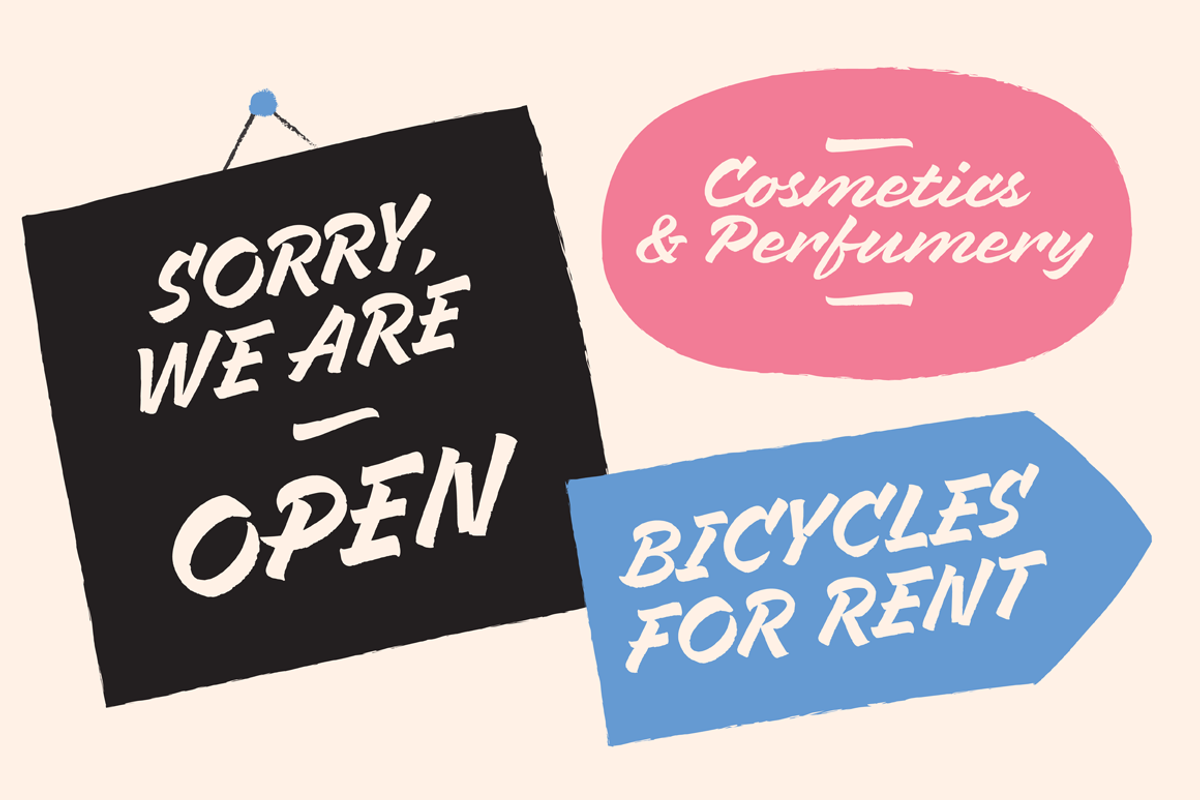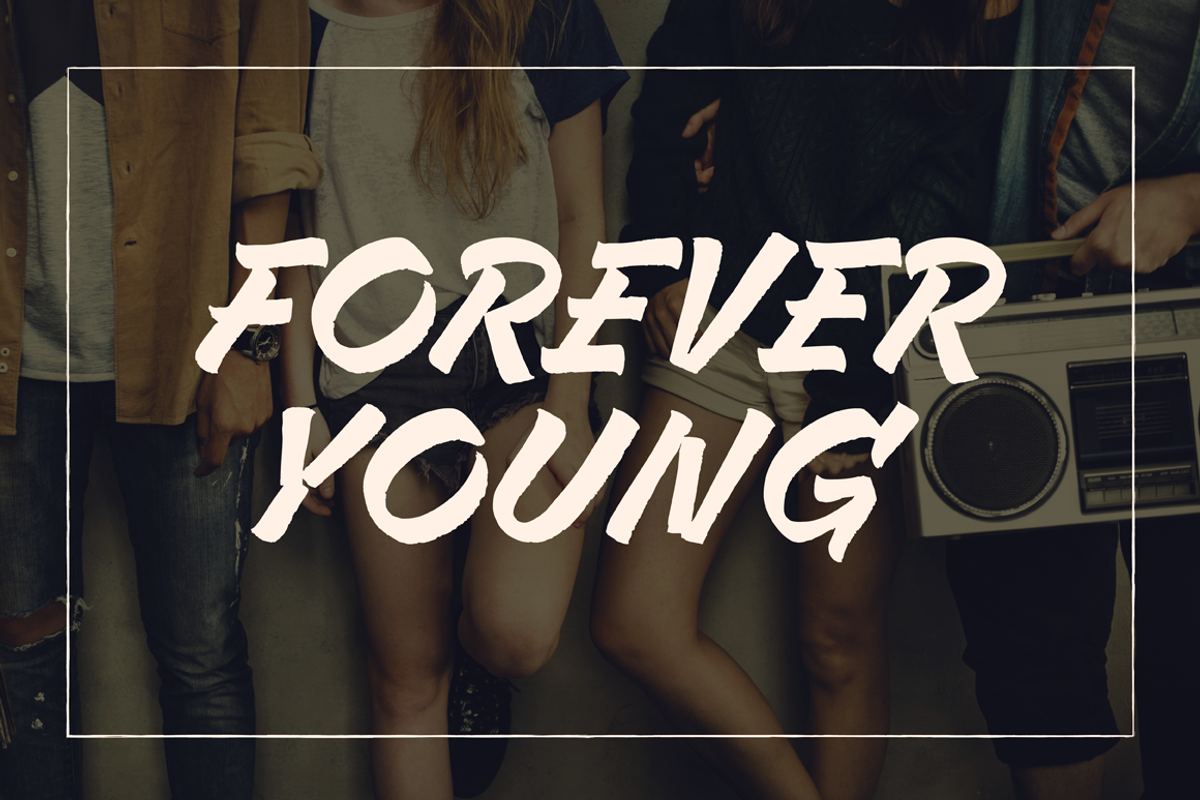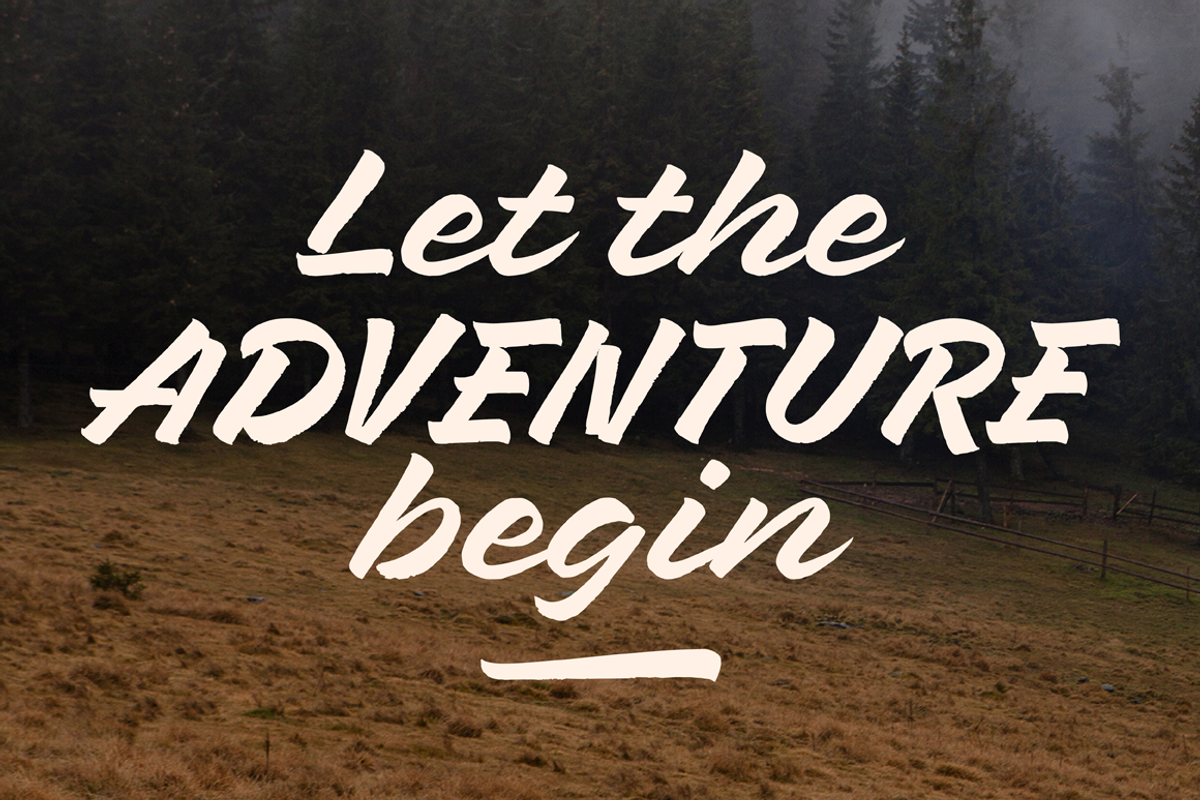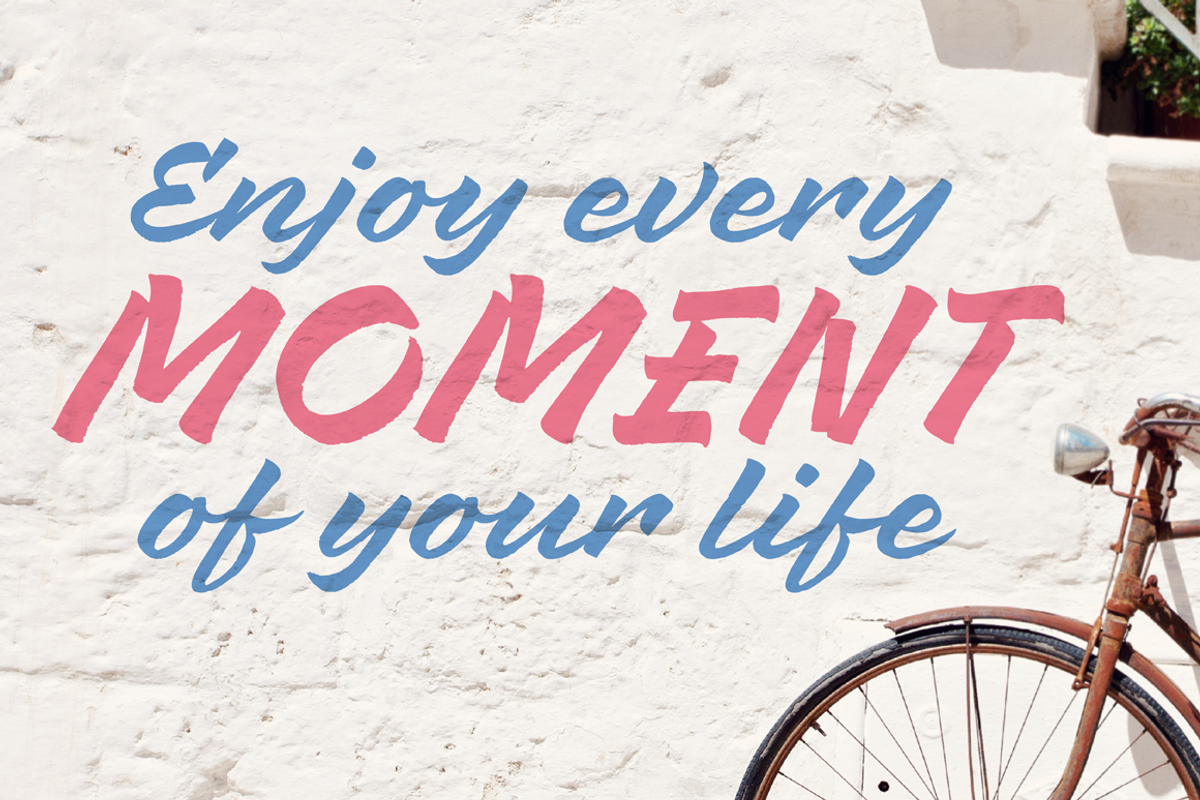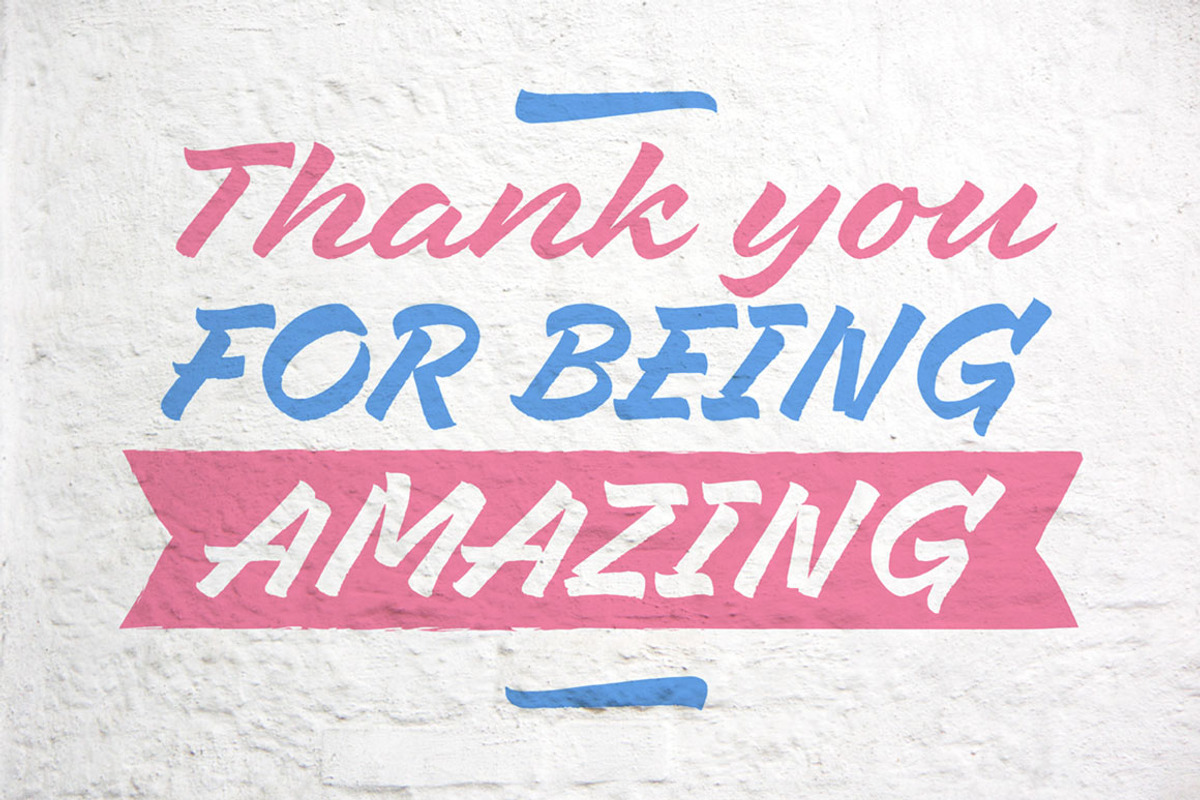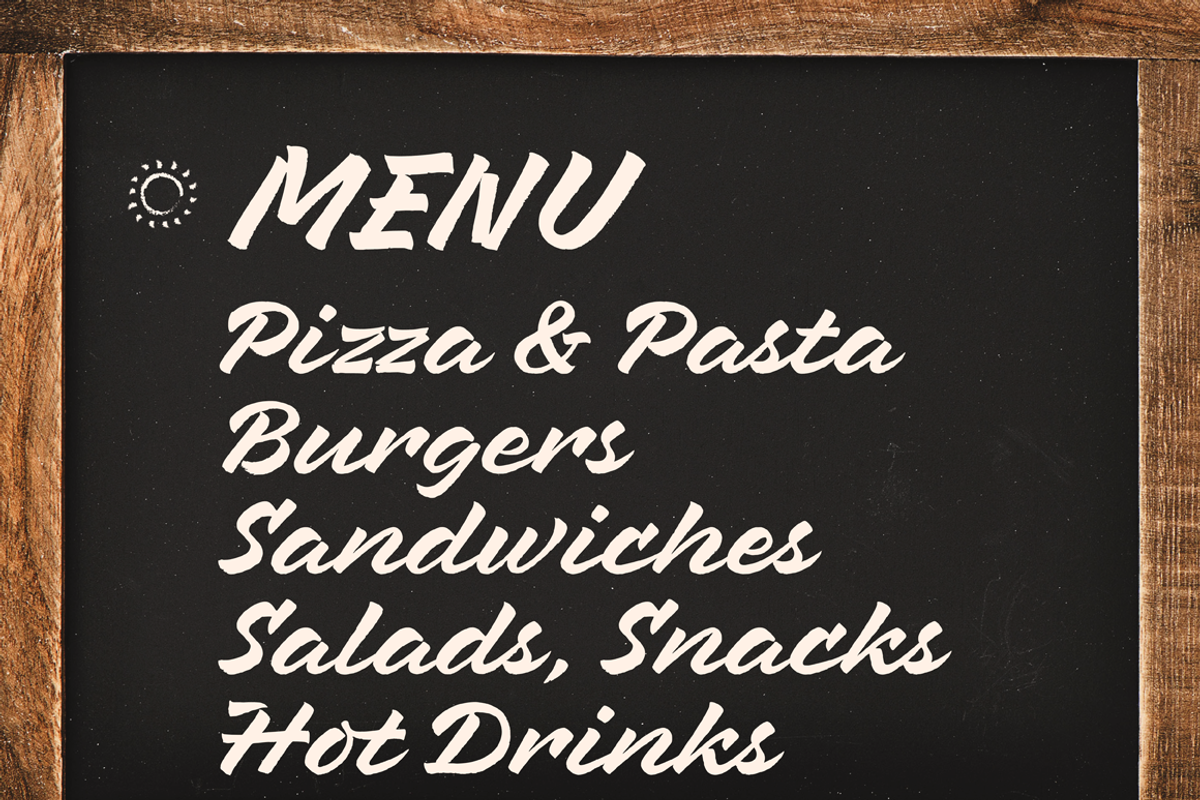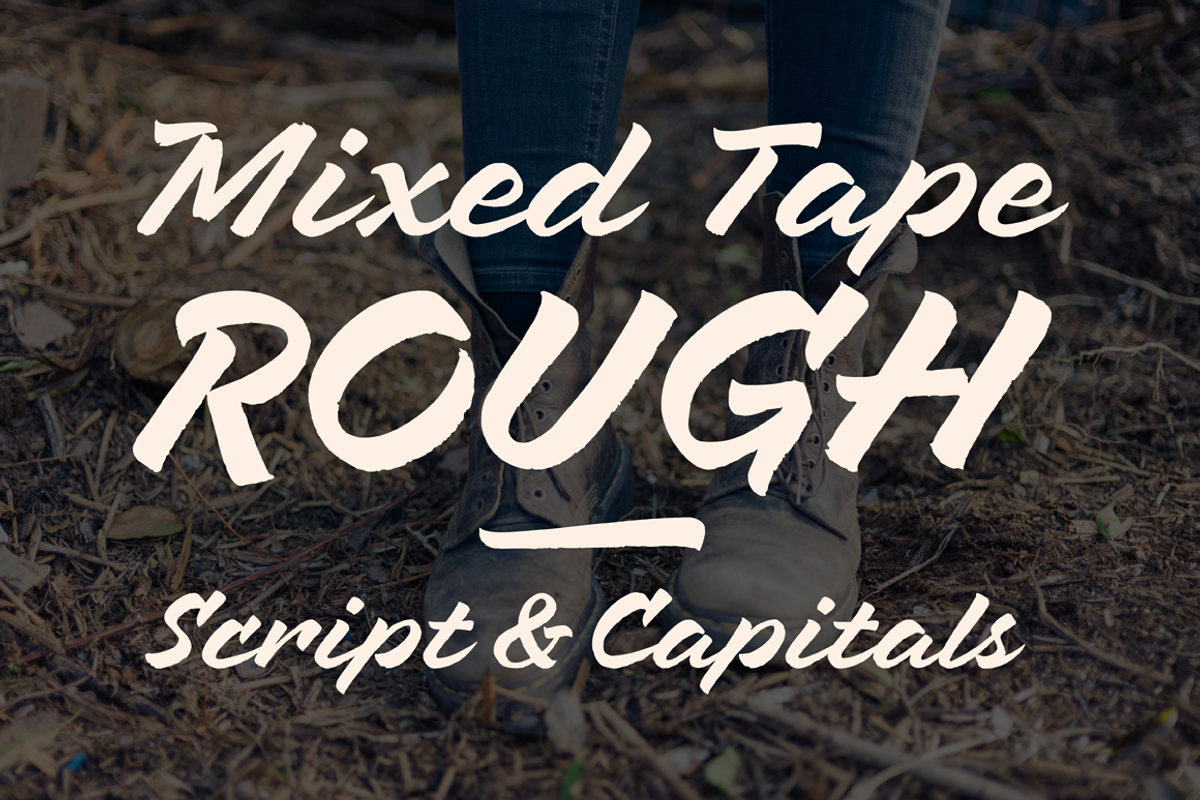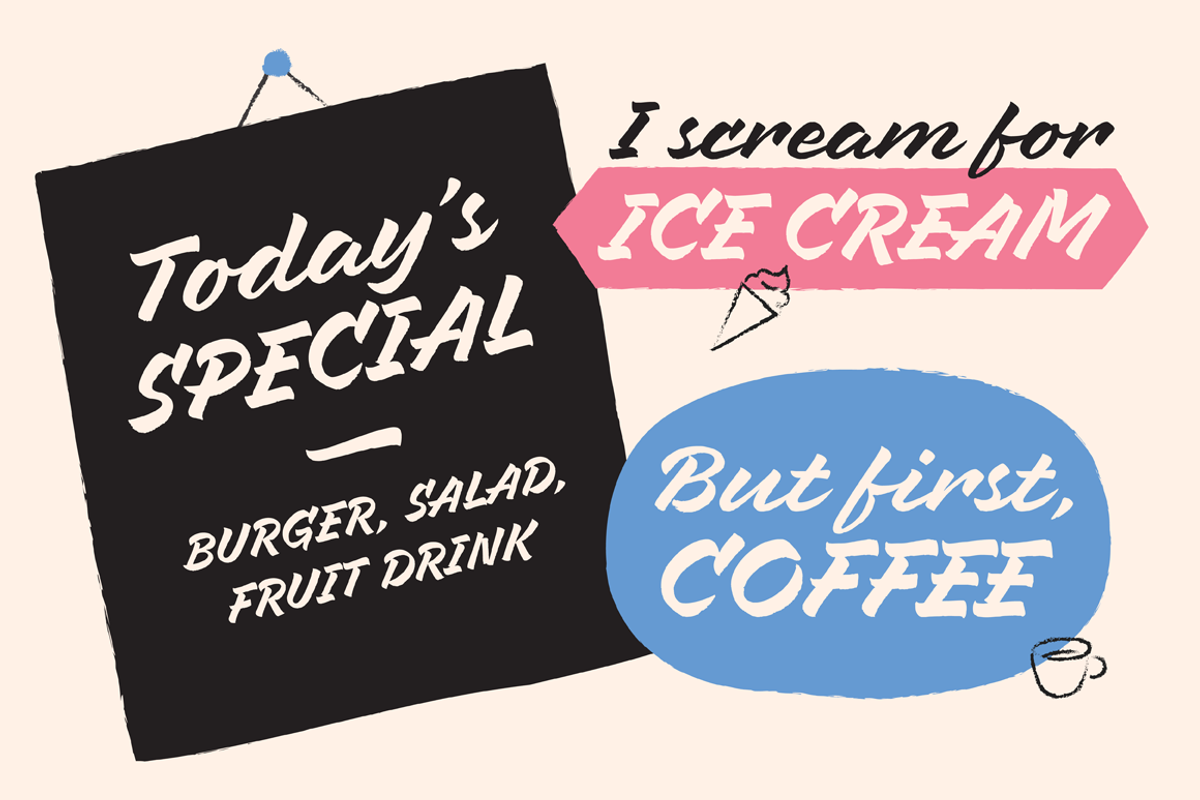
Mixed Tape Rough Font Duo (50% off) by Ksenia Belobrova is a font selected for branding, posters, packaging, typography.
- It’s a rough calligraphic font duo which includes 2 Styles: Regular Capitals It doesn’t have as many alternates as Mixed Tape and supports m
- Mixed Tape Rough Regular
- Mixed Tape Rough Capitals
Mixed Tape Rough Font Duo (50% off) by Ksenia Belobrova fits naturally into Branding, posters, packaging, typography.